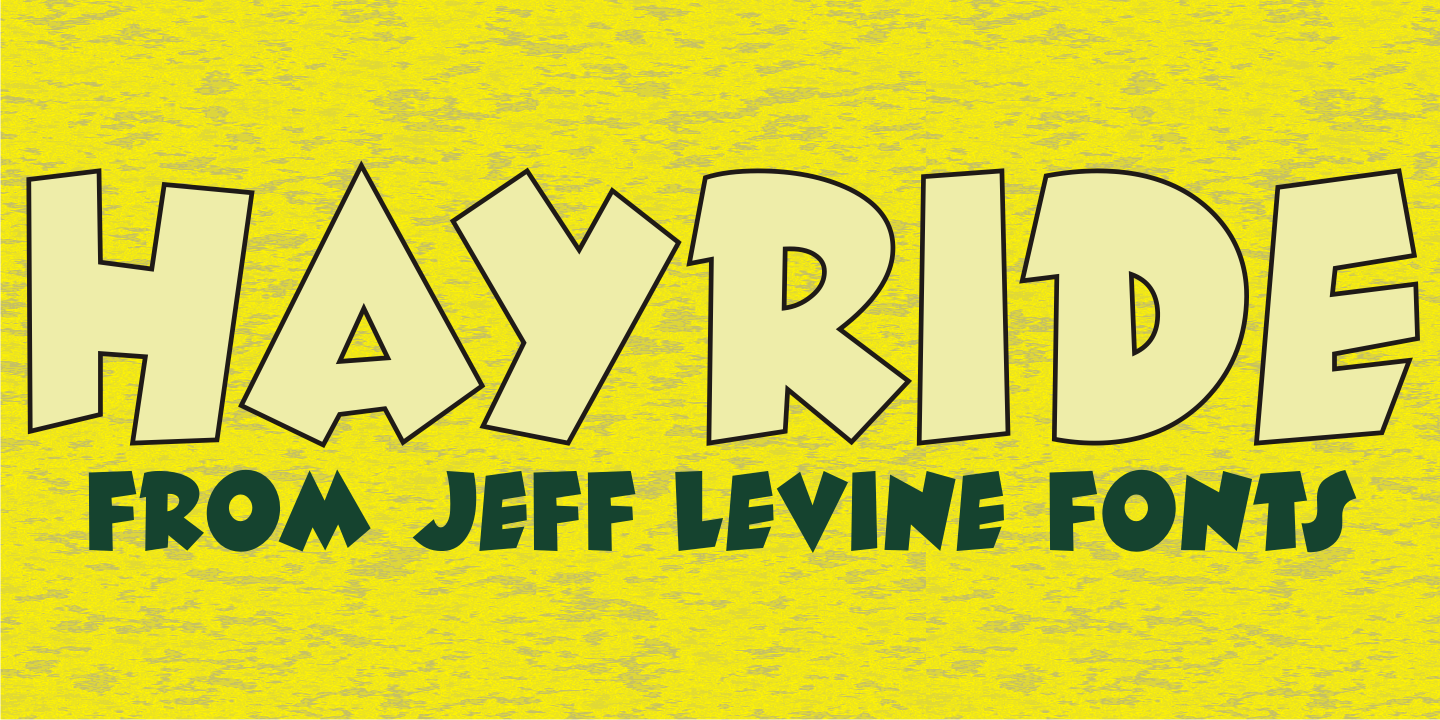
Hayride JNL is a comic, display sans and kids font published by Jeff Levine Fonts.
Based in part on the hand-lettered title for a piece of vintage sheet music, Hayride JNL gets both its inspiration and name from Michael Todd’s 1948 production “Mexican Hayride”.
The original design was in outline form, and the letters with straight-lined shapes had slight curves to them. For Hayride JNL, those lines were straightened and the letters made solid in appearance.